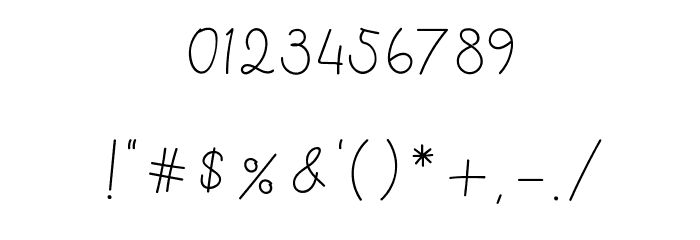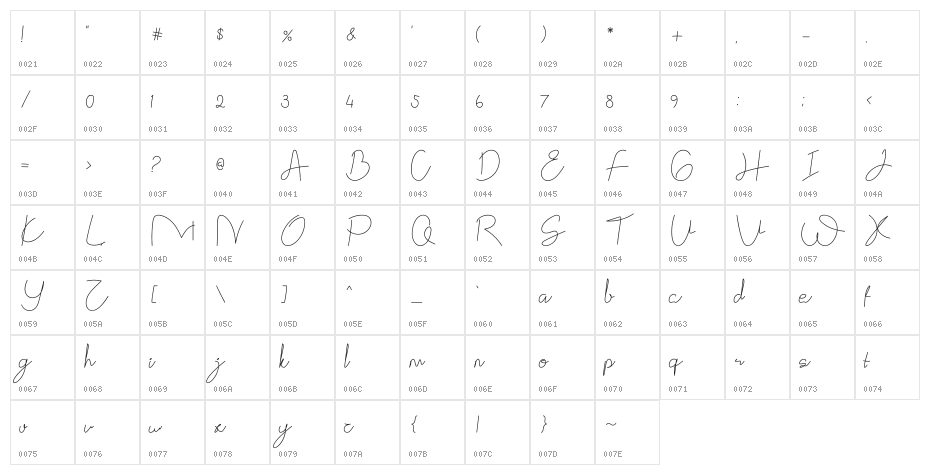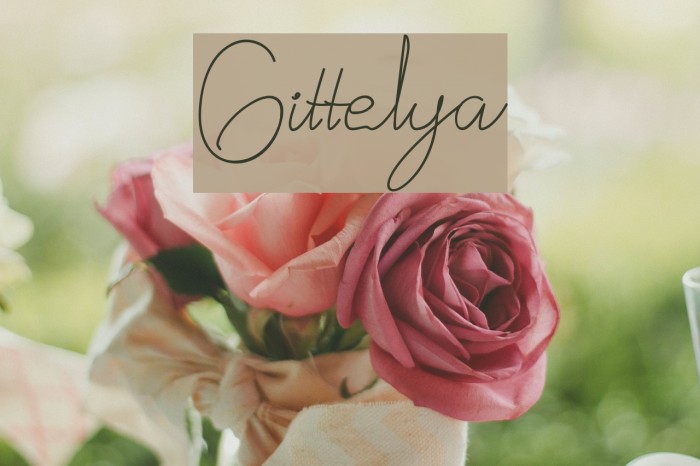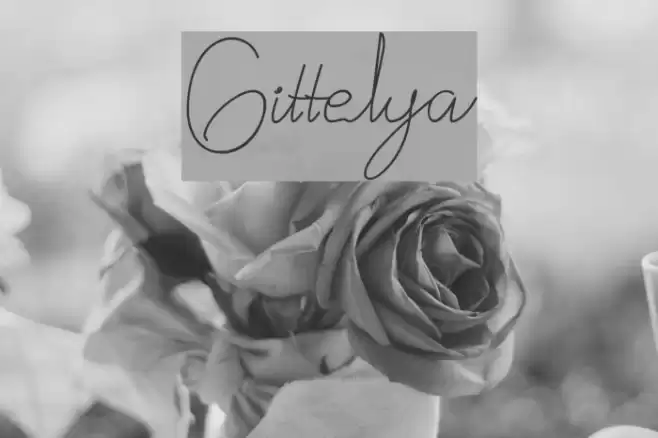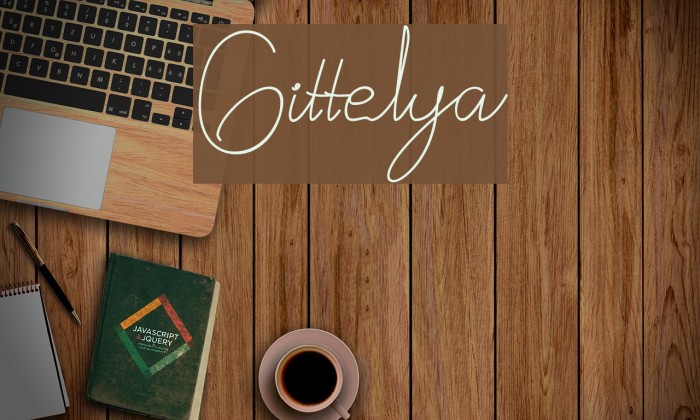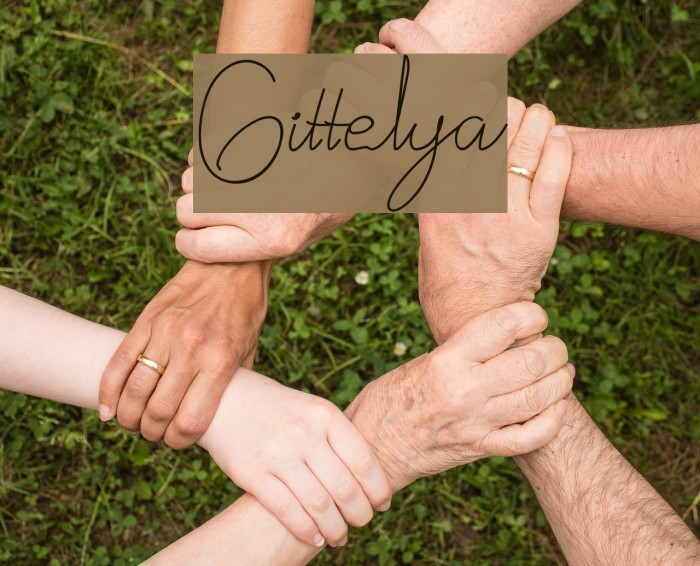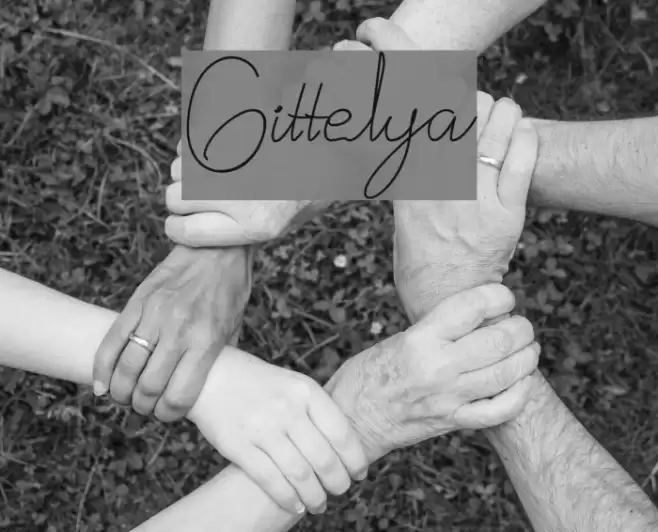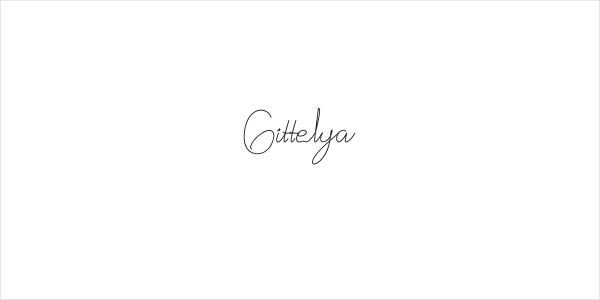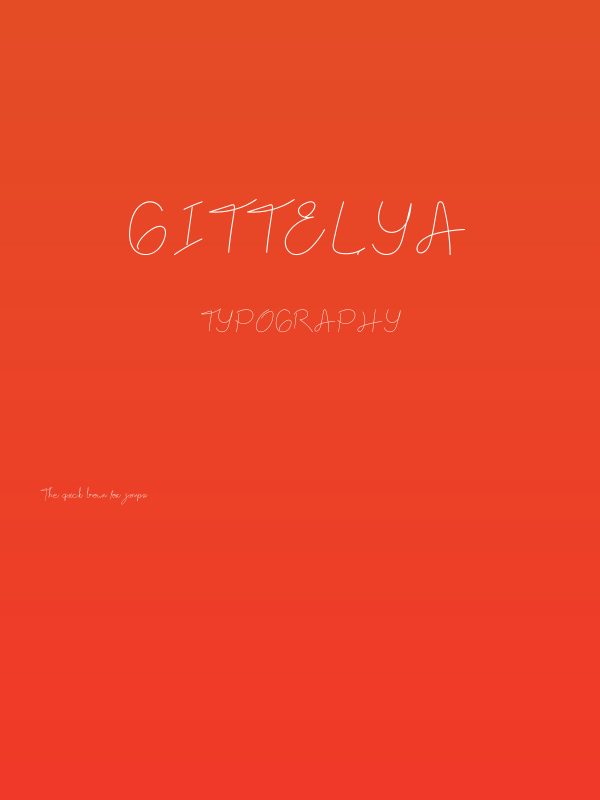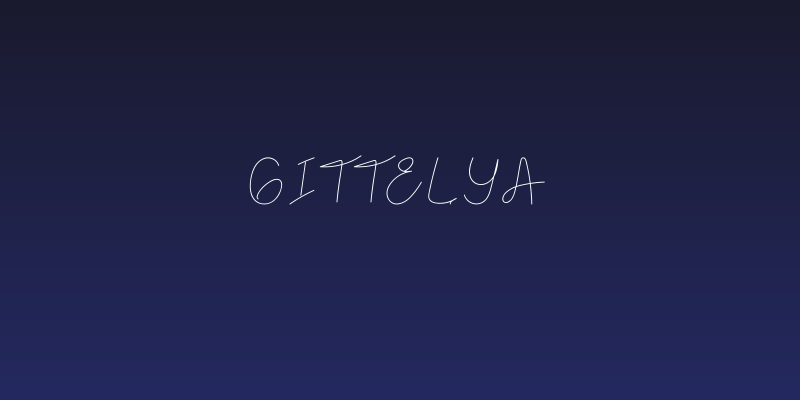
Gittelya Font
Gittelya Description
This font features a delicate and elegant script style, characterized by its flowing, cursive letterforms. The uppercase letters are tall and slender, with a graceful, airy quality that adds a sense of sophistication. The lowercase letters maintain a consistent fluidity, with smooth connections between strokes, creating a harmonious and seamless appearance. The numerals are clear and legible, complementing the overall aesthetic. Special characters are thoughtfully designed to match the script's refined style. This font's thin strokes and gentle curves make it ideal for projects that require a touch of elegance and class.
| Use Case | Logos, Invitations, Personal stationery |
| Proposed Projects | Ideal for wedding invitations, elegant branding, personal stationery, and romantic quotes. |